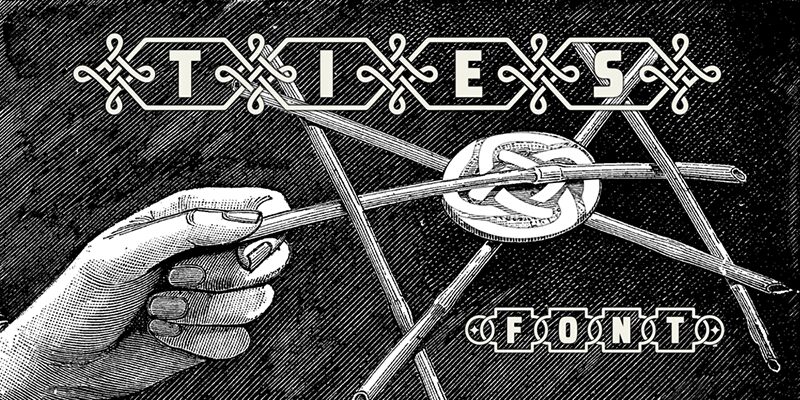
Ties font by deFharo captures the historical essence of the Victorian era with its ornamental, decorative forms. An intricate free font with expressive detailing, it blends elegant design elements with vintage and nostalgic appeal. The intriguing intricate patterns and ornate forms make Ties an intriguing option for classic and atypical typographic visual creations.
Ideal for a wide range of uses, the typeface can be used for t-shirt designs, signage, book covers, packaging layouts, and magazine covers. Logos, branding elements, posters, invitations, and business cards are other uses.
TIES is a display historic banner-style typeface featuring a unique tribal aesthetic. This free font showcases an intertwined and decorative alphabet that beautifully blends strength and elegance.
Originating as a banner-style font, each character is seamlessly integrated into a frame, interwoven with the next by intricately designed knots. These knots are more than mere embellishments; they consist of flowing, tribal-style ribbons and bows that enhance the visual rhythm of the typeface.
The result is a harmonious alphabet that encapsulates strength, elegance, ornamentation, and structure.